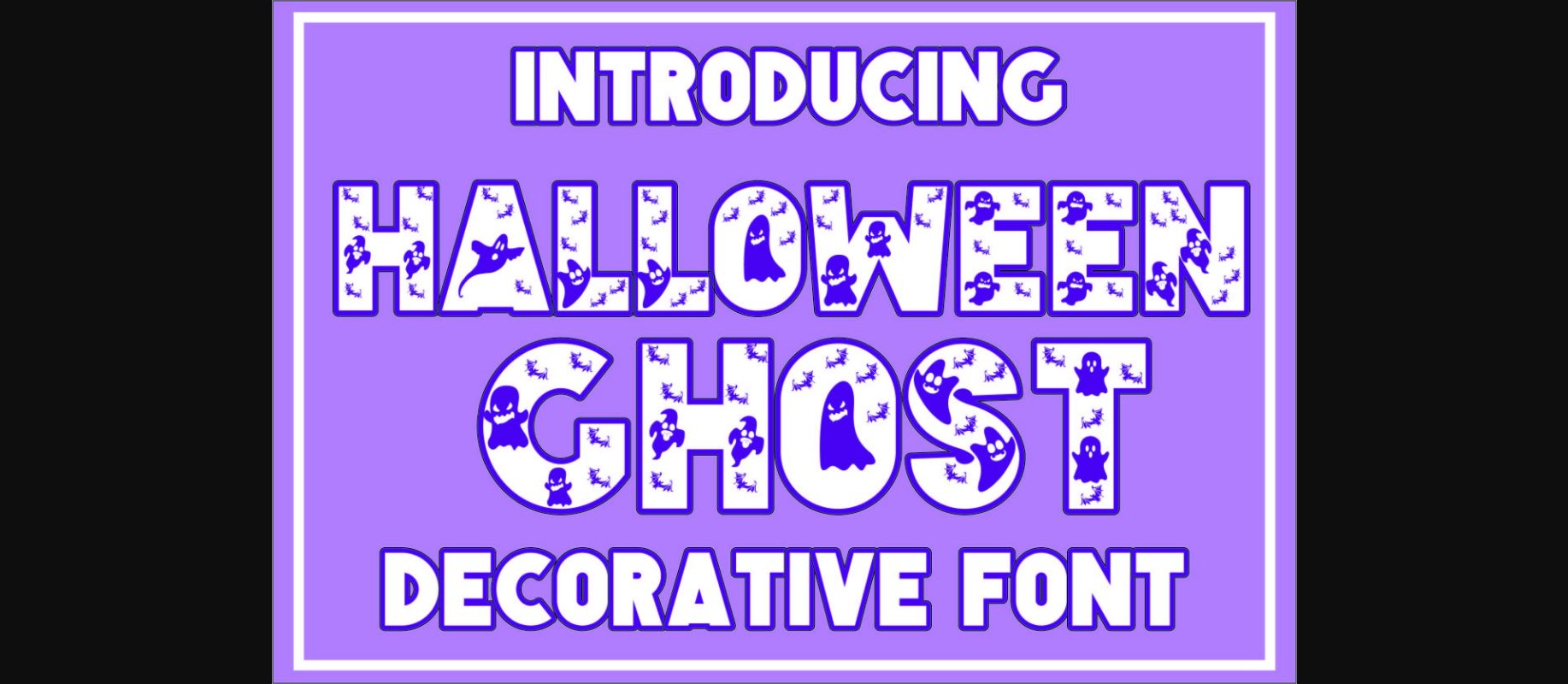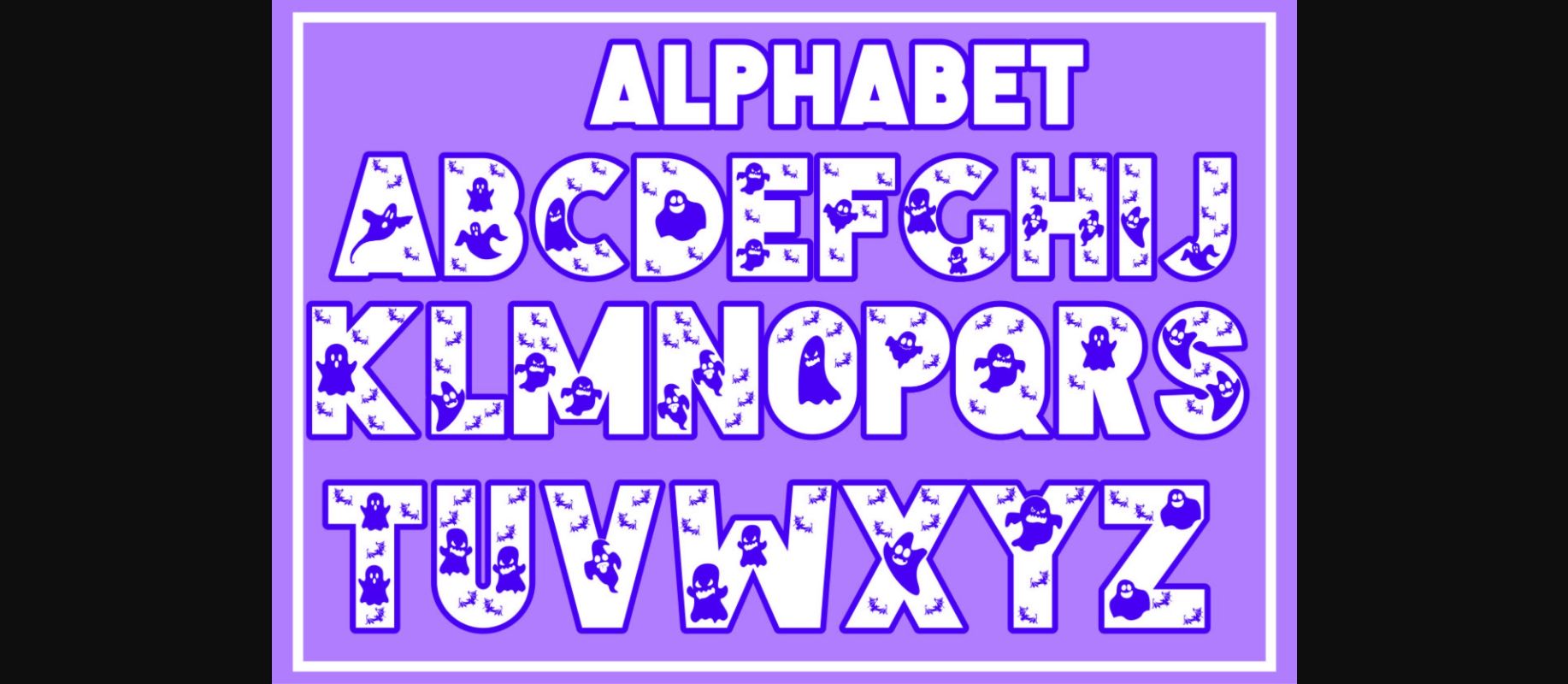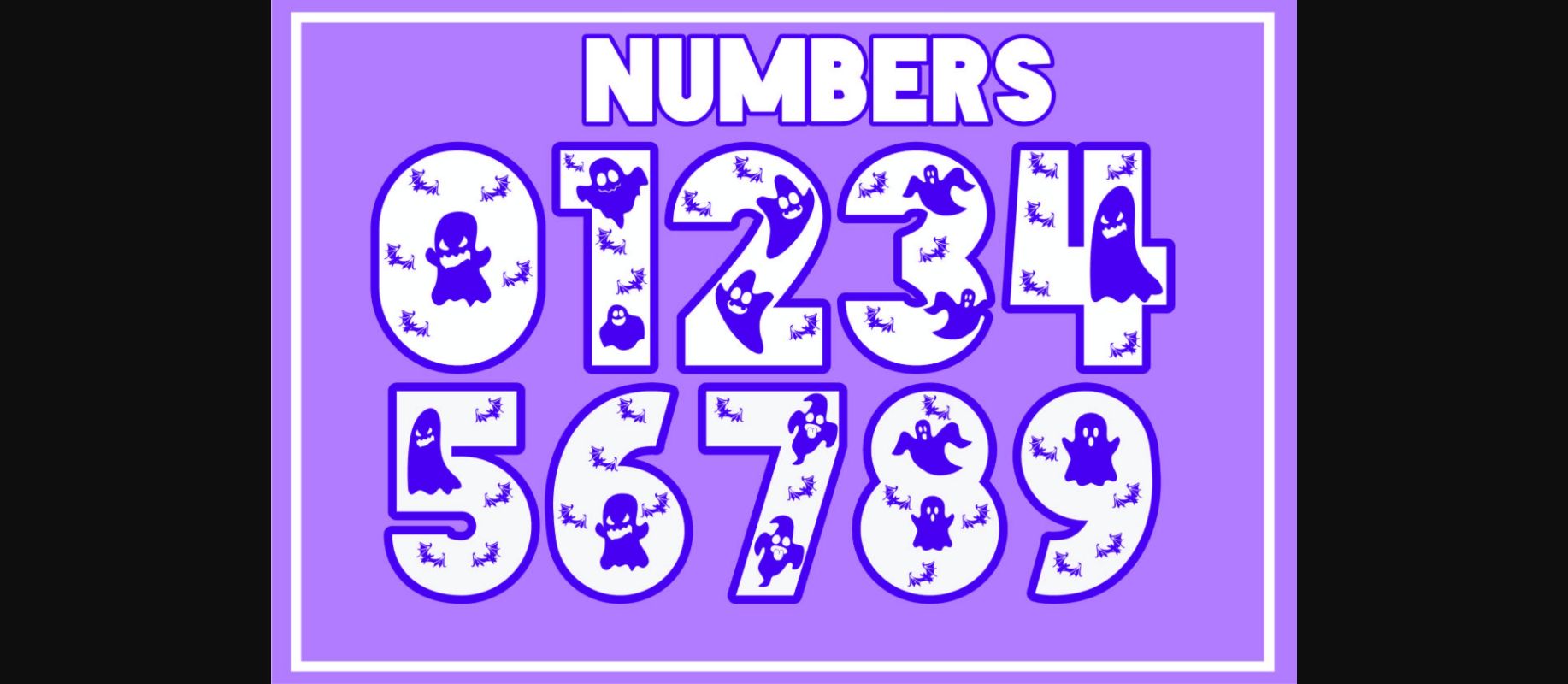
HomeDecorative FontsHalloween Ghost Font Decorative Fonts Halloween Ghost Font FacebookXPinterestWhatsApp 1 of 5 ... Halloween Ghost Font Poster 2... Halloween Ghost Font Poster 3... Halloween Ghost Font Poster 4... Halloween Ghost Font Poster 5... About Halloween Ghost Font Halloween Ghost is a fun and dramatic decorative display font. Add it to your October Halloween party designs and notice how it makes them stand out! DOWNLOAD NOW People also explored Starmoon Font Mr Sheffield Simaro Font Dara Font Luv Luv Font Deanisa Font Kids Angel Dyalova Font Pasopati Font 298 0 TagsHalloween Ghost Font Previous articleChubby Animal FontNext articleGlazed Donut Font LEAVE A REPLY Cancel reply Comment: Please enter your comment! Name:* Please enter your name here Email:* You have entered an incorrect email address! Please enter your email address here Website: Save my name, email, and website in this browser for the next time I comment. Personal Use Free Eniem Personal Use Free Read more about this font Rookie Mastering Personal Use Free Read more about this font DangeRNighT Font Personal Use Free Read more about this font Font Slice Personal Use Free Read more about this font BLOG Top 7 Google Fonts Alternatives for Faster and Privacy-Friendly Web Design (2025) Top 7 Google Fonts Alternatives for Faster and Privacy-Friendly Web Design (2025) When it comes to web typography, Google Fonts has long been the go-to... Using Fonts in Digital Marketing: Tips to Strengthen Your Brand Identity Fonts That Capture the Spirit of New York City Elegant Wedding Invitation Fonts – Handwritten & Script Fonts